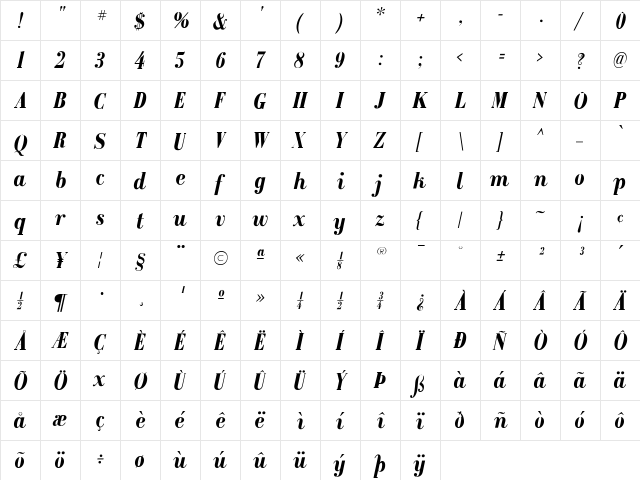
GalileoFLF Bold Italic
Design Context for GalileoFLF Typeface
GalileoFLF is a composed and adaptable typeface that performs quietly and consistently across a wide range of design contexts. The dynamic lean of this cut emphasises speed and emphasis in any layout. The heavy weight commands attention and anchors typographic hierarchies.
Pro Tip: Try GalileoFLF for annotation and caption copy alongside an upright companion — the contrast in angle creates a dynamic but ordered typographic system.